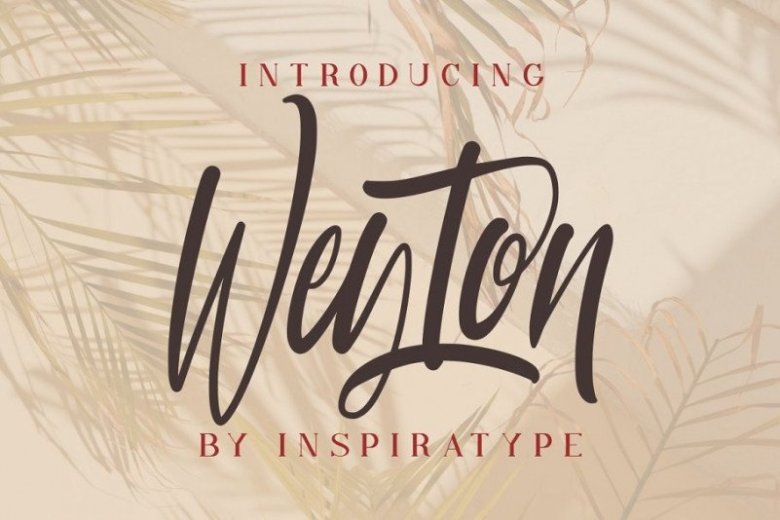
Weyton Font
Weyton Calligraphy Font is A modern calligraphy font. This gorgeous script is for those who need some elegance and style for their designs and is perfect for wedding invitations, save date cards, feminine branding, and other necessities. This font is modern, simple, but still authentic. It is was designed and shares by Inspiratype Studio.
Weyton Calligraphy Font is a font display that is made by hand, inspired by classic posters. comes with uppercase, lowercase, numerals, punctuations and so many variations on each character include OpenType alternates, common ligatures and also additional swash to let you customize your designs. Perfect to use for Logotype, Letterhead, Poster, Apparel Design, Label and etc.